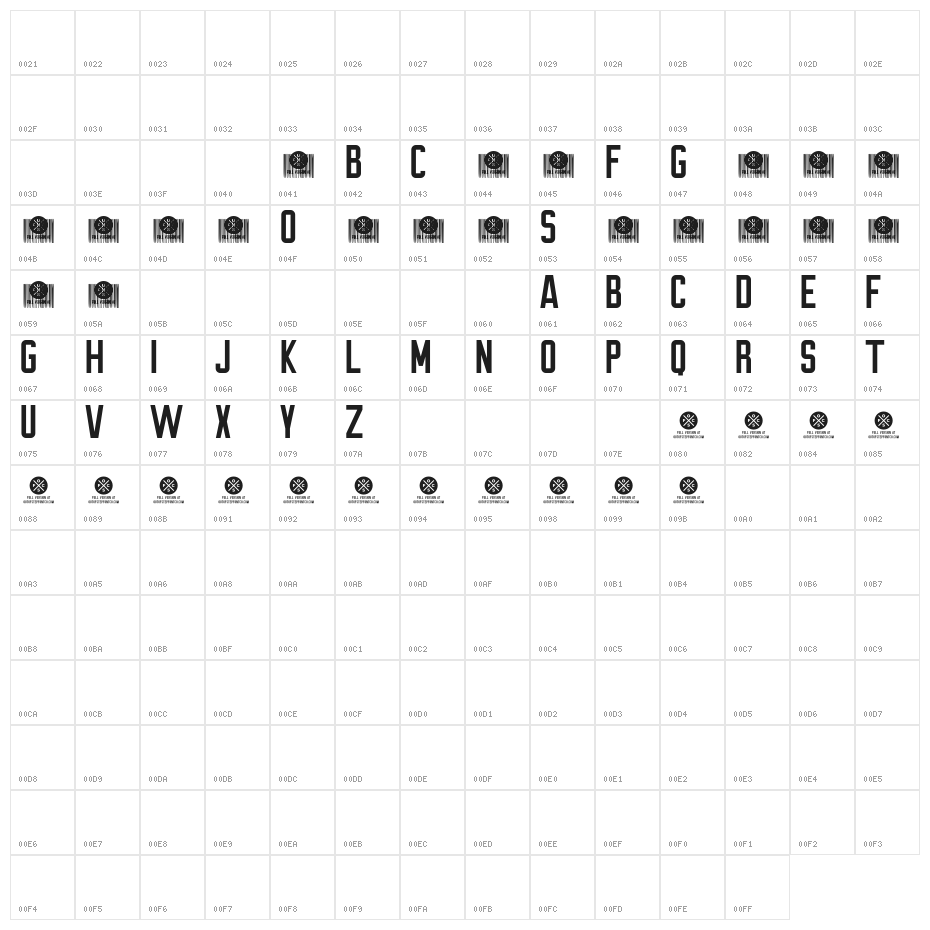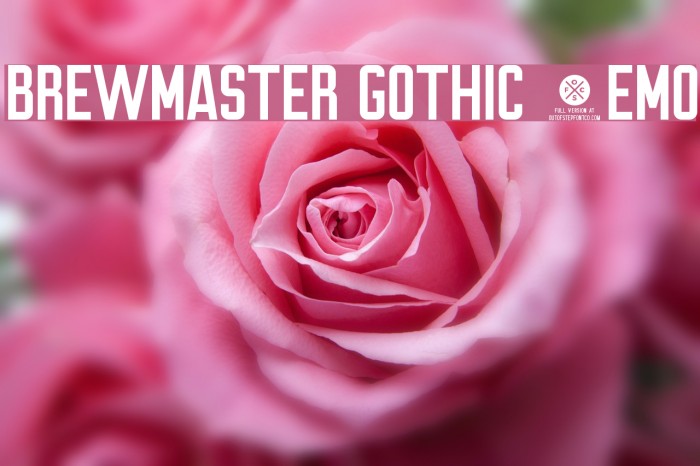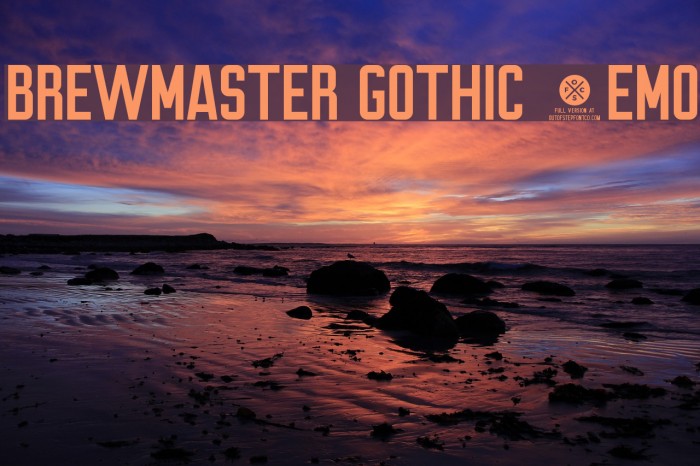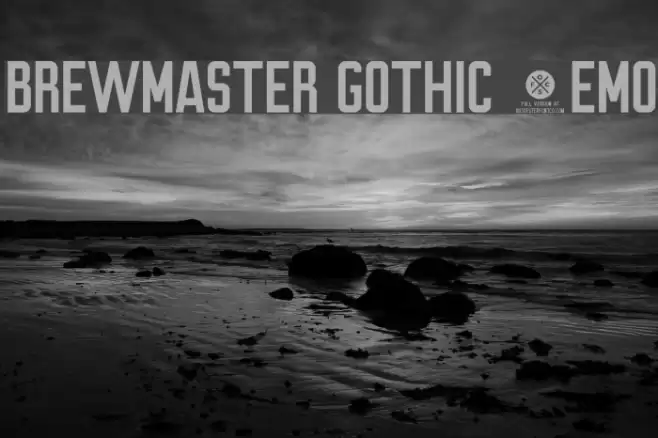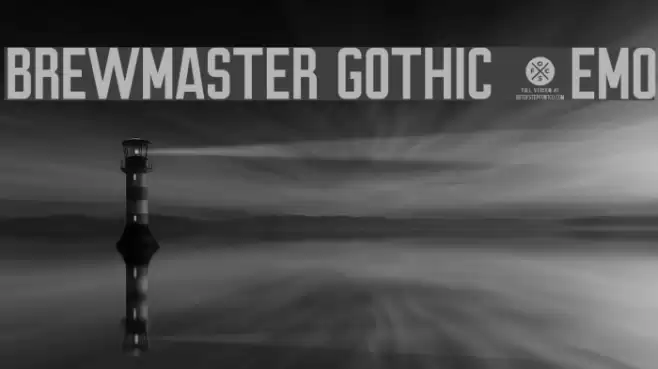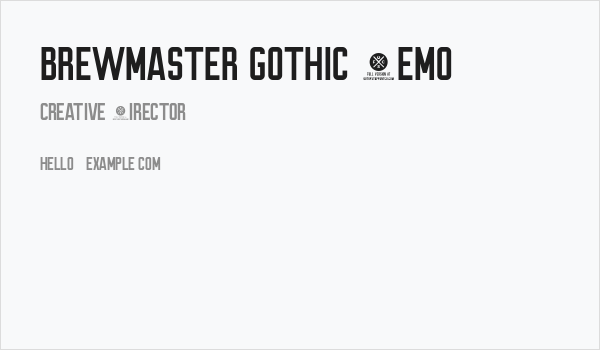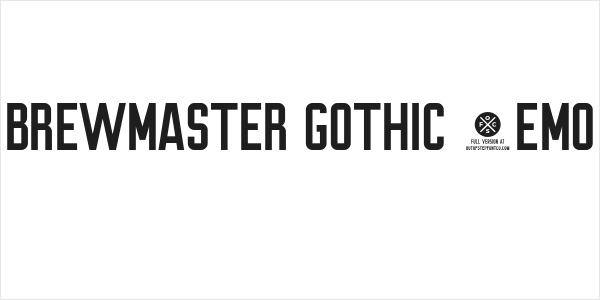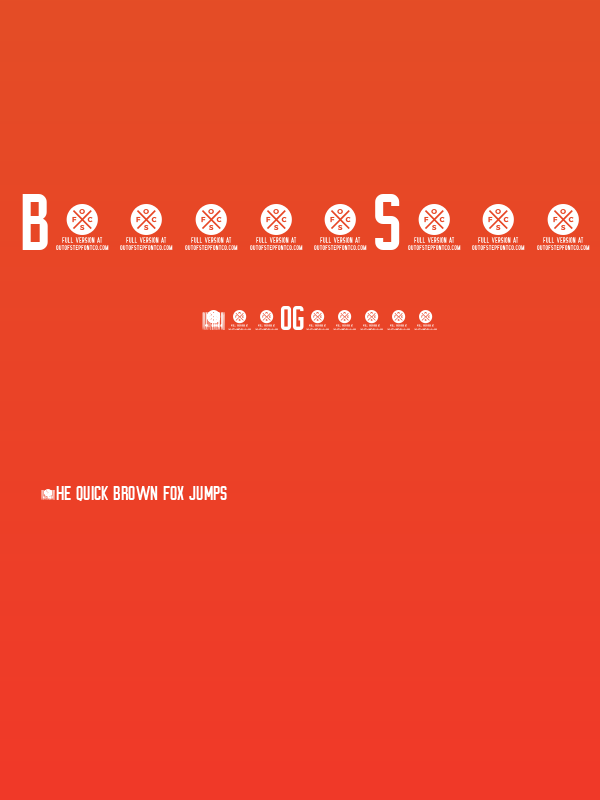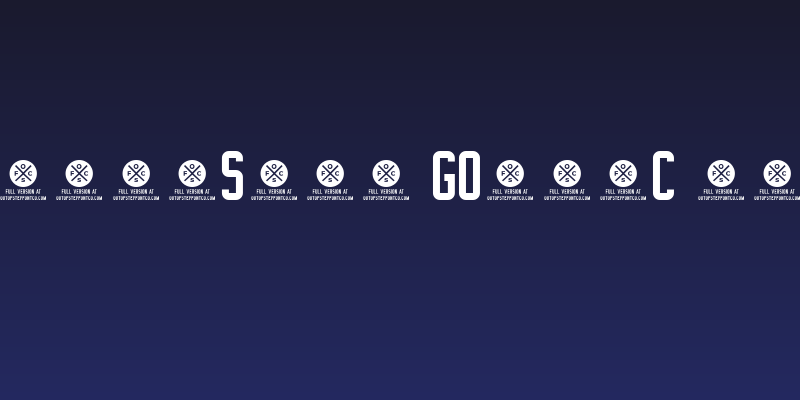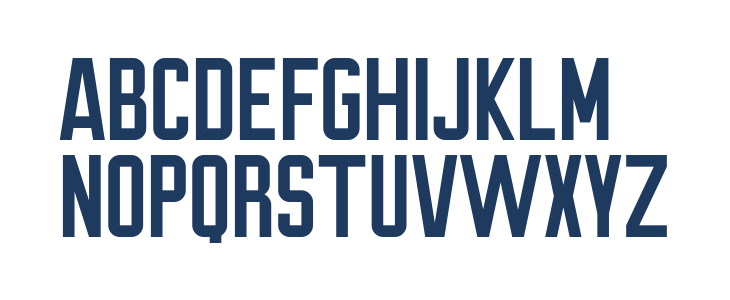
Brewmaster Gothic Demo Font
Brewmaster Gothic Demo Description
This font features bold, uppercase letters with a strong, industrial feel. The characters are tall and narrow, with consistent stroke widths that give it a clean and modern appearance. The geometric shapes and sharp angles contribute to its structured and robust look, making it ideal for impactful headlines and signage. The font lacks lowercase letters and special characters, focusing on a straightforward and assertive style. Its simplicity and clarity make it suitable for various design projects that require a bold statement.